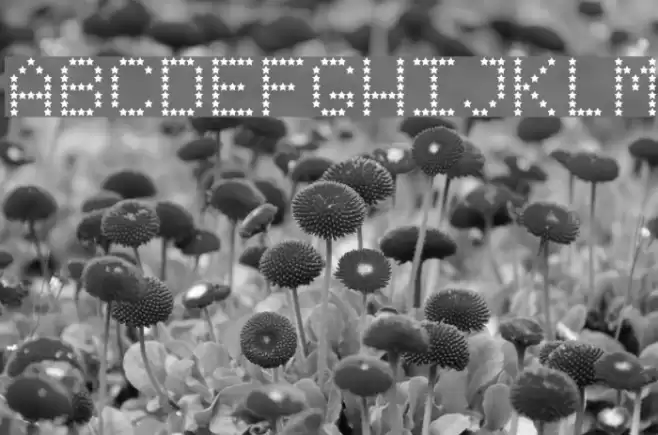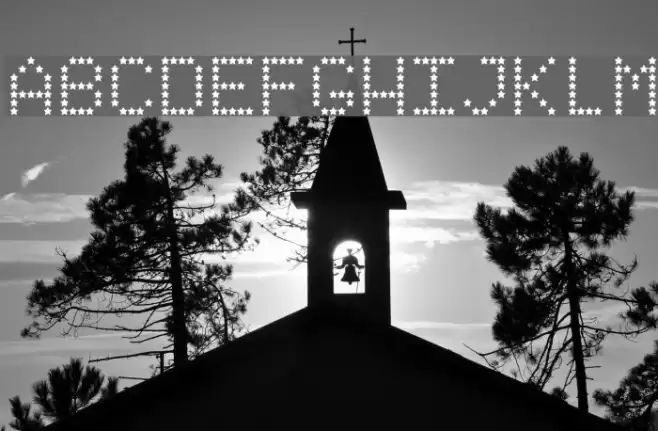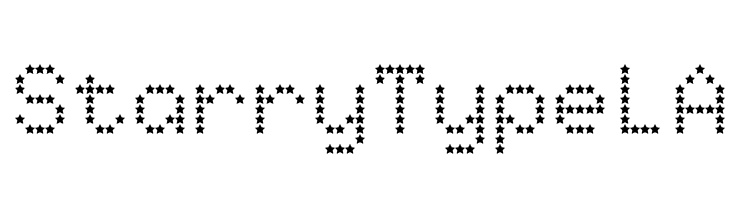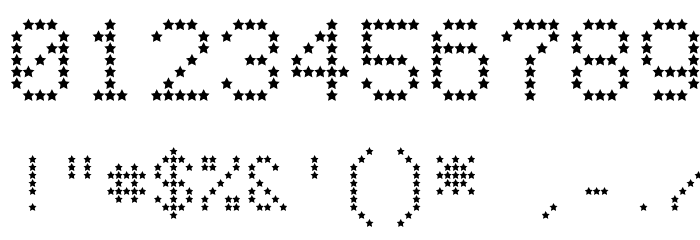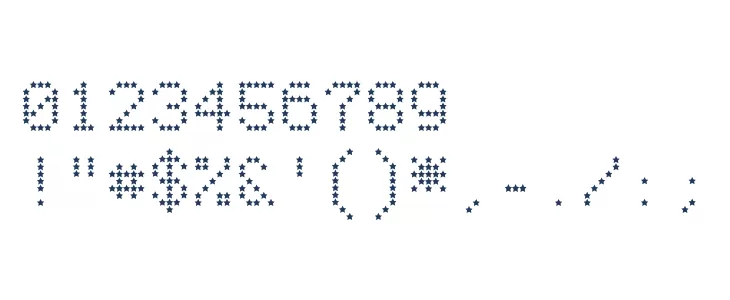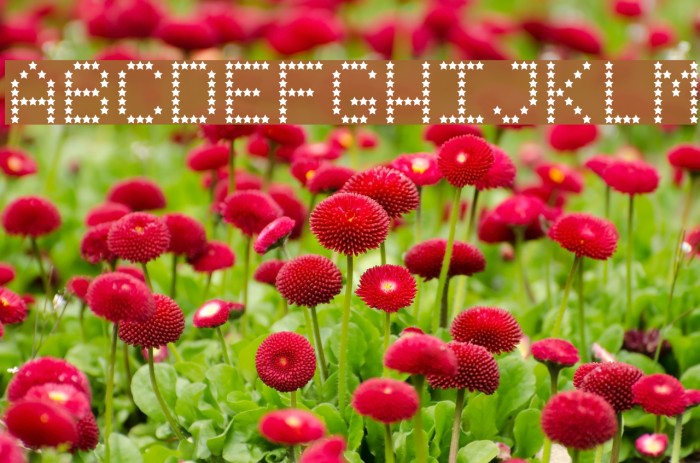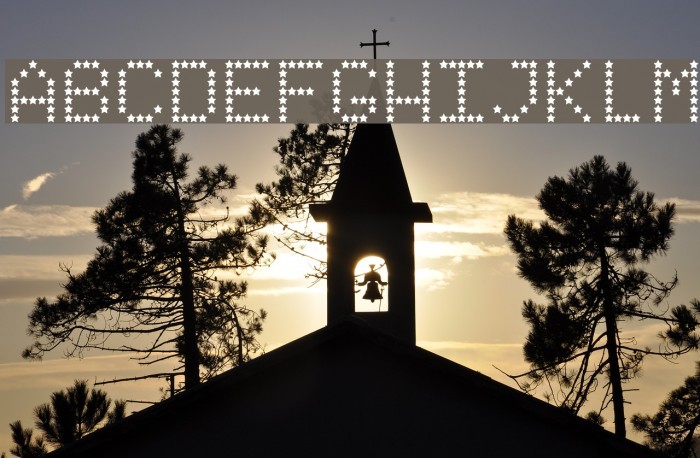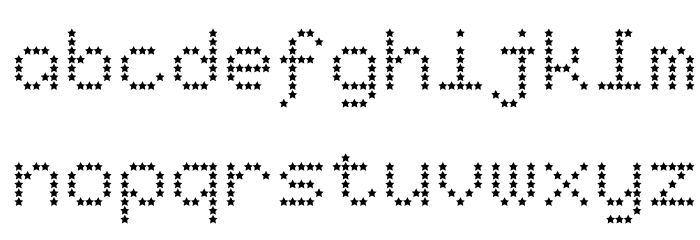
StarryTypeLA Font
StarryTypeLA Description
This font features a unique and playful design where each character is composed of small star shapes. The stars are evenly distributed to form the outlines of letters and numbers, creating a whimsical and decorative appearance. The uppercase and lowercase letters maintain a consistent style, with clear distinctions between each character. The numbers and special characters follow the same starry pattern, ensuring uniformity across the font. This design is particularly eye-catching and would be suitable for projects that aim to convey a sense of fun and creativity.
A playful font made entirely of star shapes, perfect for creative projects from Decorative fonts.
- Proposed Projects: Ideal for children's books, party invitations, festive banners, and creative branding.